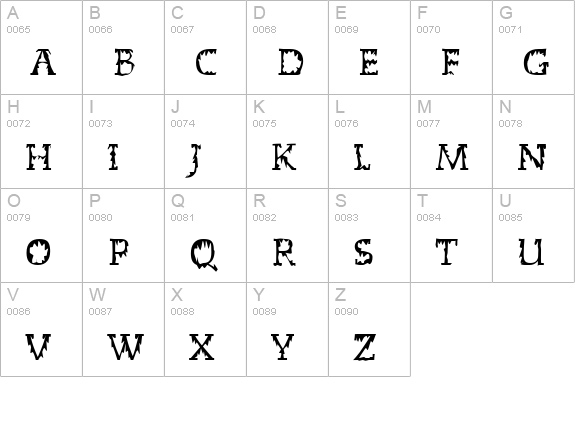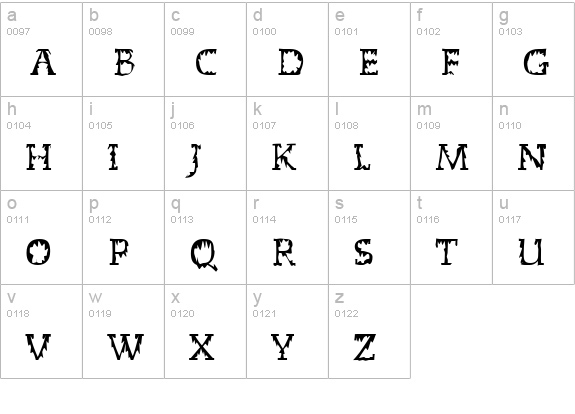
Introducing Dead World font, a hauntingly beautiful typeface that perfectly captures the eerie essence of a post-apocalyptic world. With its bold, distressed letterforms and rough edges, Dead World font is sure to add a touch of darkness to any design project. Whether you're working on a horror movie poster, a Halloween party invitation, or a gothic-themed website, this font will set the mood just right. The best part? Dead World font is completely free to download at FontsMarket.com. That's right, you can unleash the power of this unique typeface in your designs without spending a dime. Don't miss out on this opportunity to add a touch of macabre to your projects with the Dead World font. Download it today and let your creativity run wild in the world of the undead.